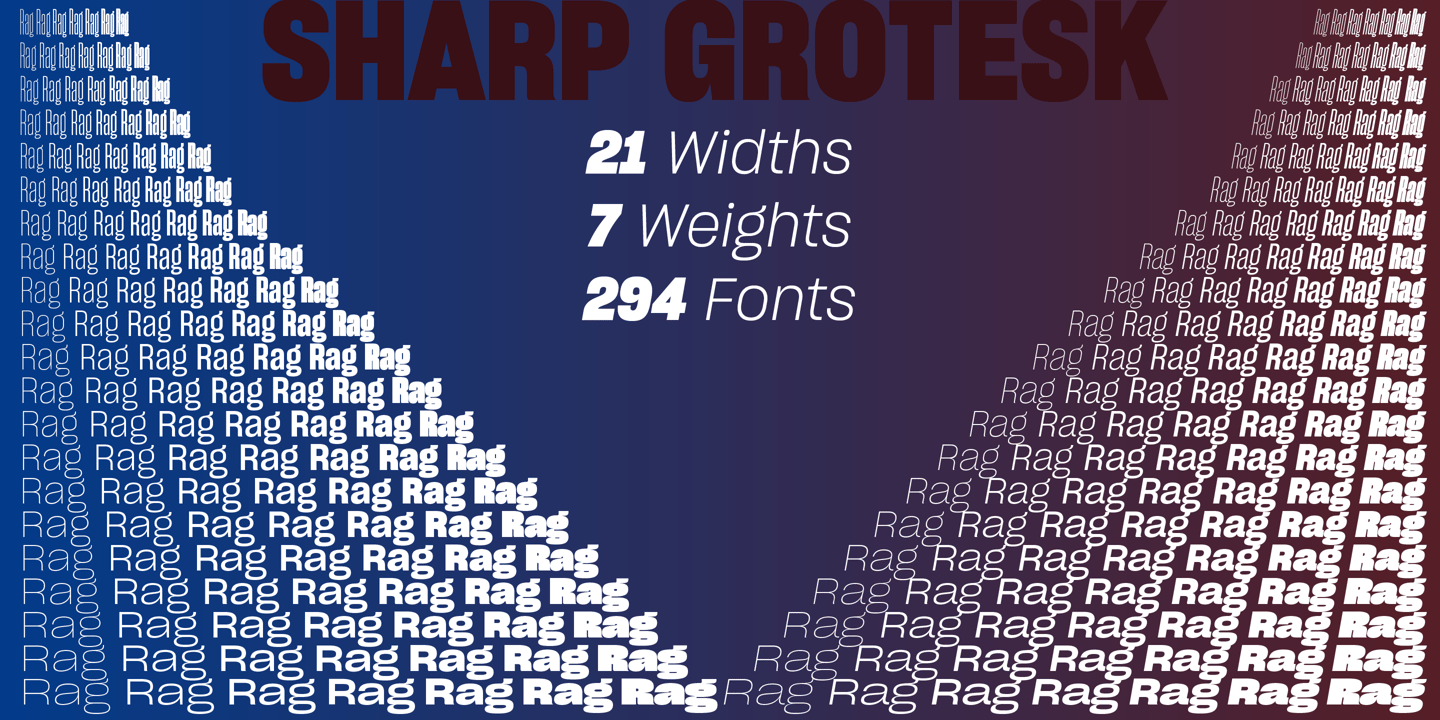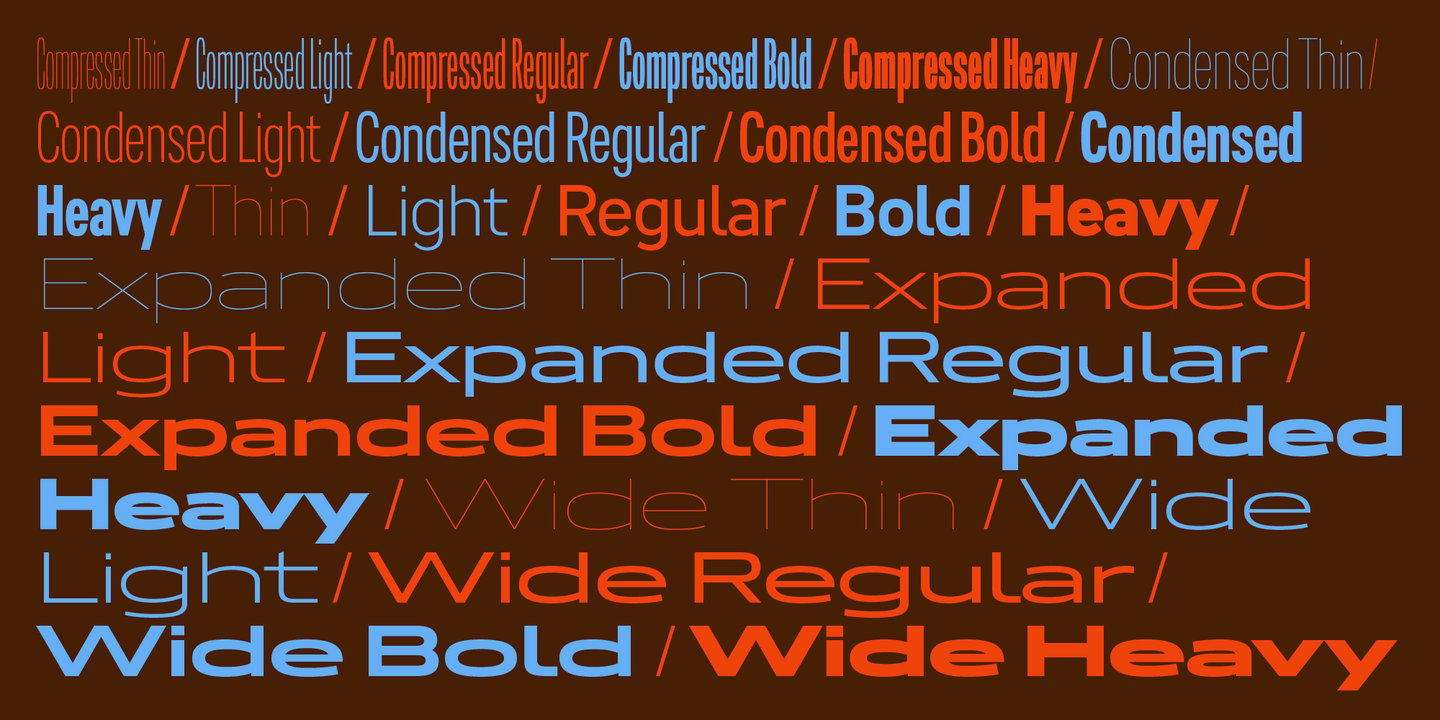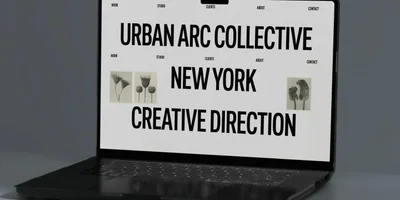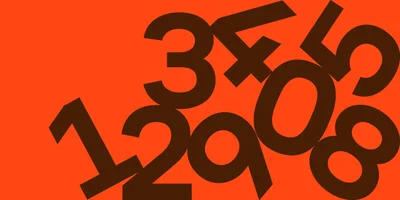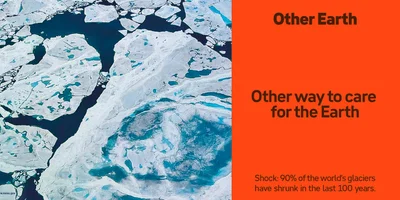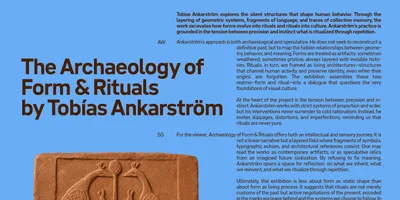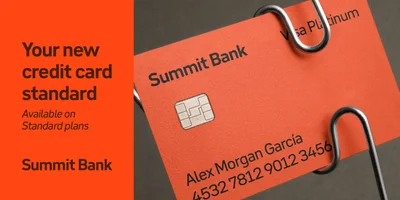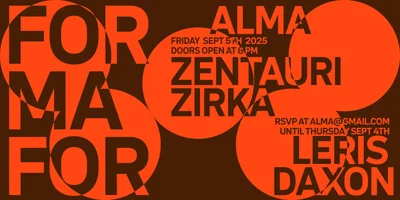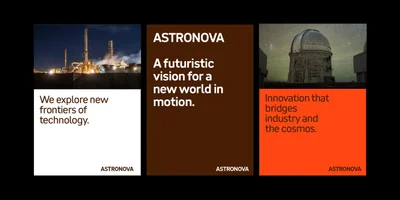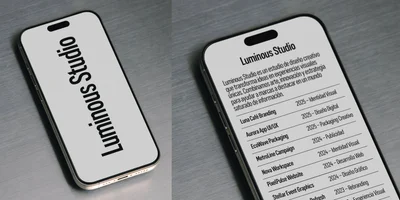
Sharp Grotesk vs WTF Forma
Sharp Grotesk and WTF Forma are both sans-serif typefaces sharing a neo-grotesque foundation. Where Sharp Grotesk leans geometric, WTF Forma brings branding, readable. Compare which suits your Branding project.
| Feature | Sharp Grotesk | WTF Forma |
| Variable Font | Yes | No |
| Weights | Variable | Multiple |
| Source | Sharp Type | W Type Foundry |
Where You'll See These Fonts
Sharp Grotesk
- Airbnb internal brand materials
- Nike select campaign typography
- Technology company brand systems
- Creative agency identities
- Responsive editorial layouts
Recommended: Sharp Grotesk
- geometric design character
- Suited for Environmental
- From Sharp Type
- Available as a variable font
Consider: WTF Forma
- branding, readable design character
- From W Type Foundry